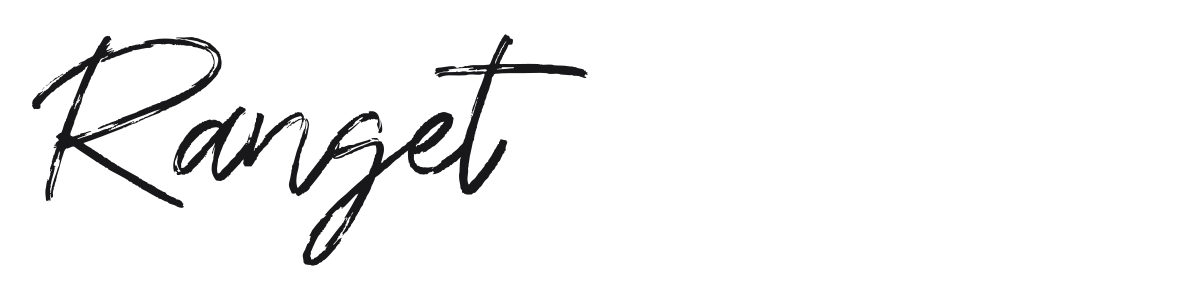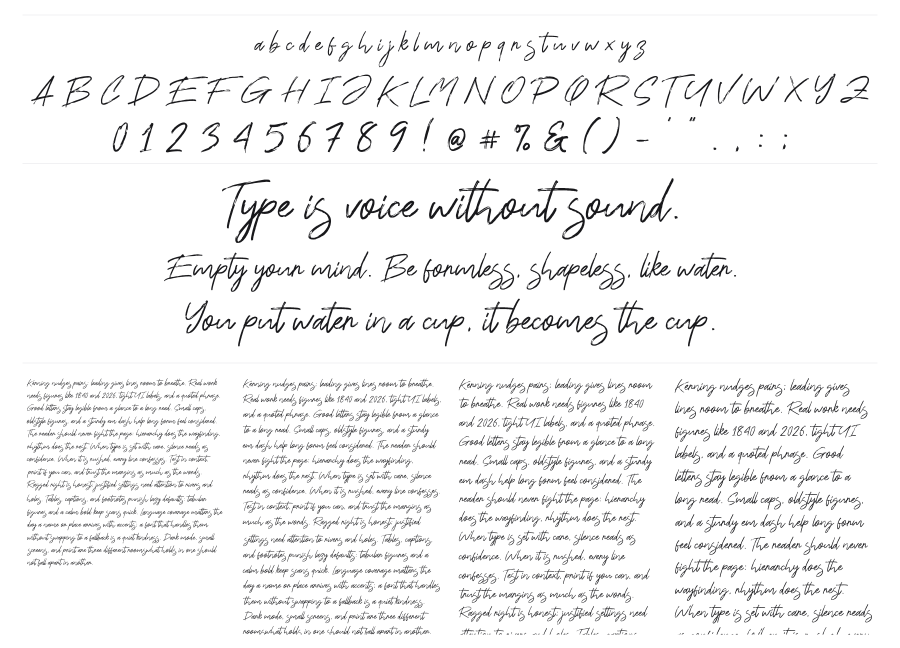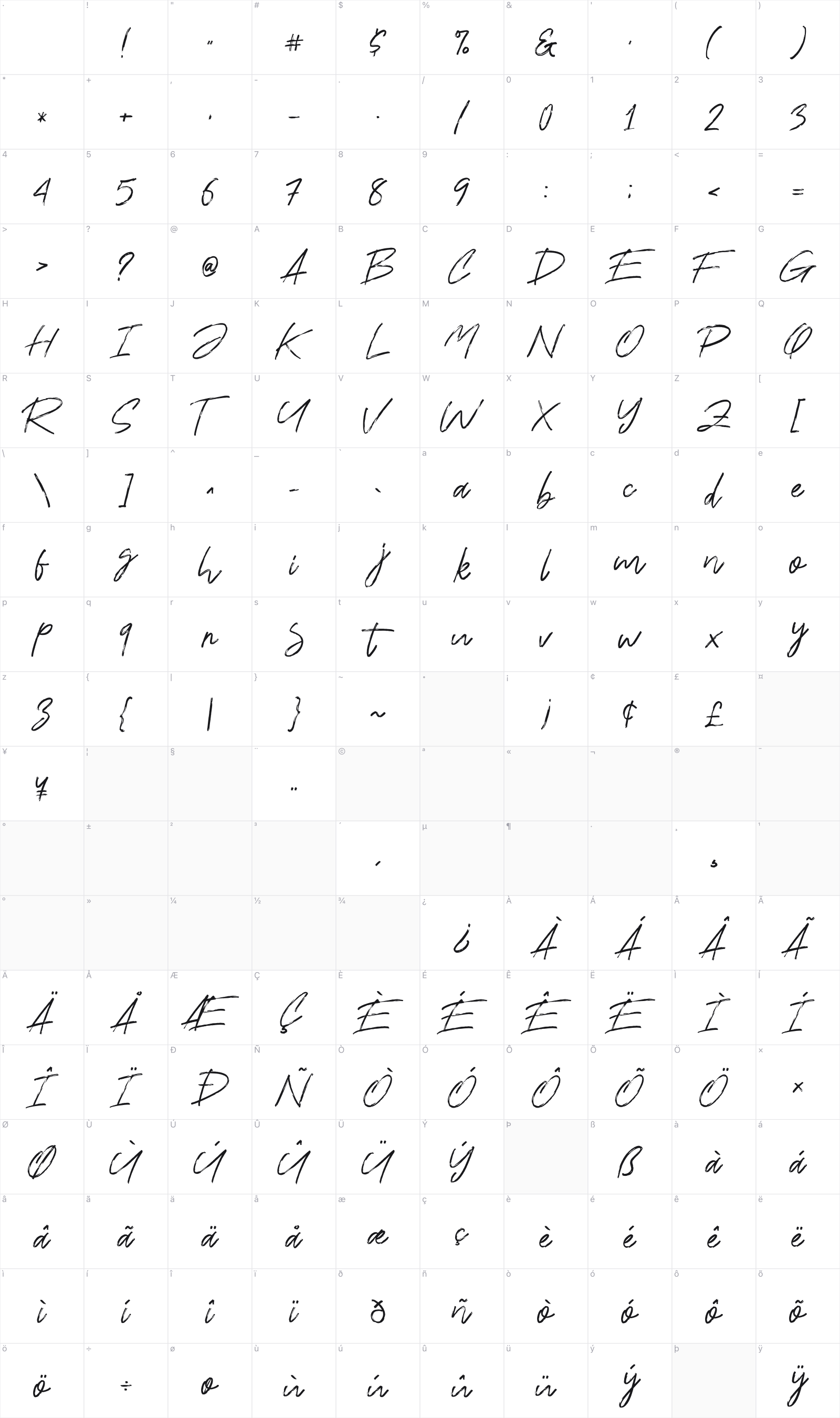
Ranget
Ranget is a casual brush script from Khurasan built on flowing ink strokes with an authentic hand-painted texture. The letters connect naturally across words, with enough roughness in the stroke edges to feel genuinely written rather than constructed. It brings a warm, relaxed energy to logos, packaging, and editorial headlines.